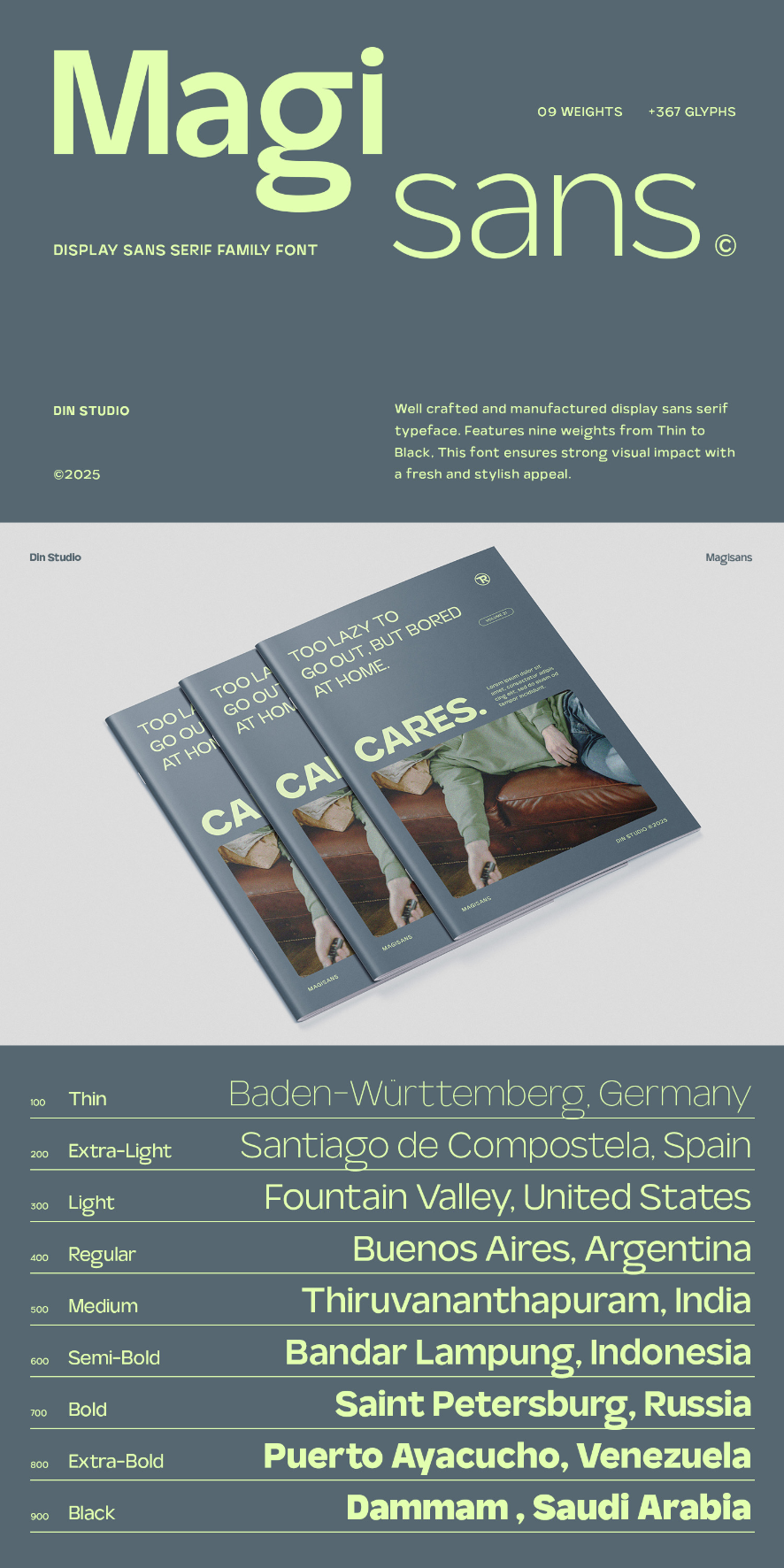
Magisans Font
About Magisans
Magisans is a sophisticated sans-serif display font that blends elegance, simplicity, and modernity into a versatile typeface. Designed with clean lines and balanced proportions, this font exudes a refined aesthetic that suits both professional and creative projects.
With 9 different font weights, from Thin to Black, Magisans gives you the freedom to adapt its style to your needs—whether you seek a light and airy touch or a bold and impactful statement. Elevate your designs with Magisans, a font that embodies modern elegance with effortless readability. In addition, enjoy the features here.
Magisans’s different weight fonts :
- Thin
- Extra Light
- Light
- Regular
- Medium
- Semi Bold
- Bold
- Extra Bold
- Black
Magisans fits in logos, branding, editorial design, web interfaces, signage, and many more designs. Find out more ways to use this font by taking a look at the font preview.